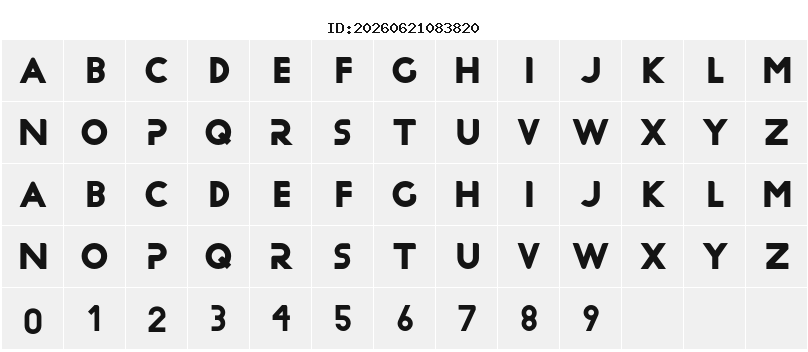
• Font Name: Current
• Designer: Matt Pendrill
About Current.otf
Current.otf is a modern, elegant sans-serif font designed for ultimate readability and visual harmony. Perfect for branding, headlines, web design, and print materials.